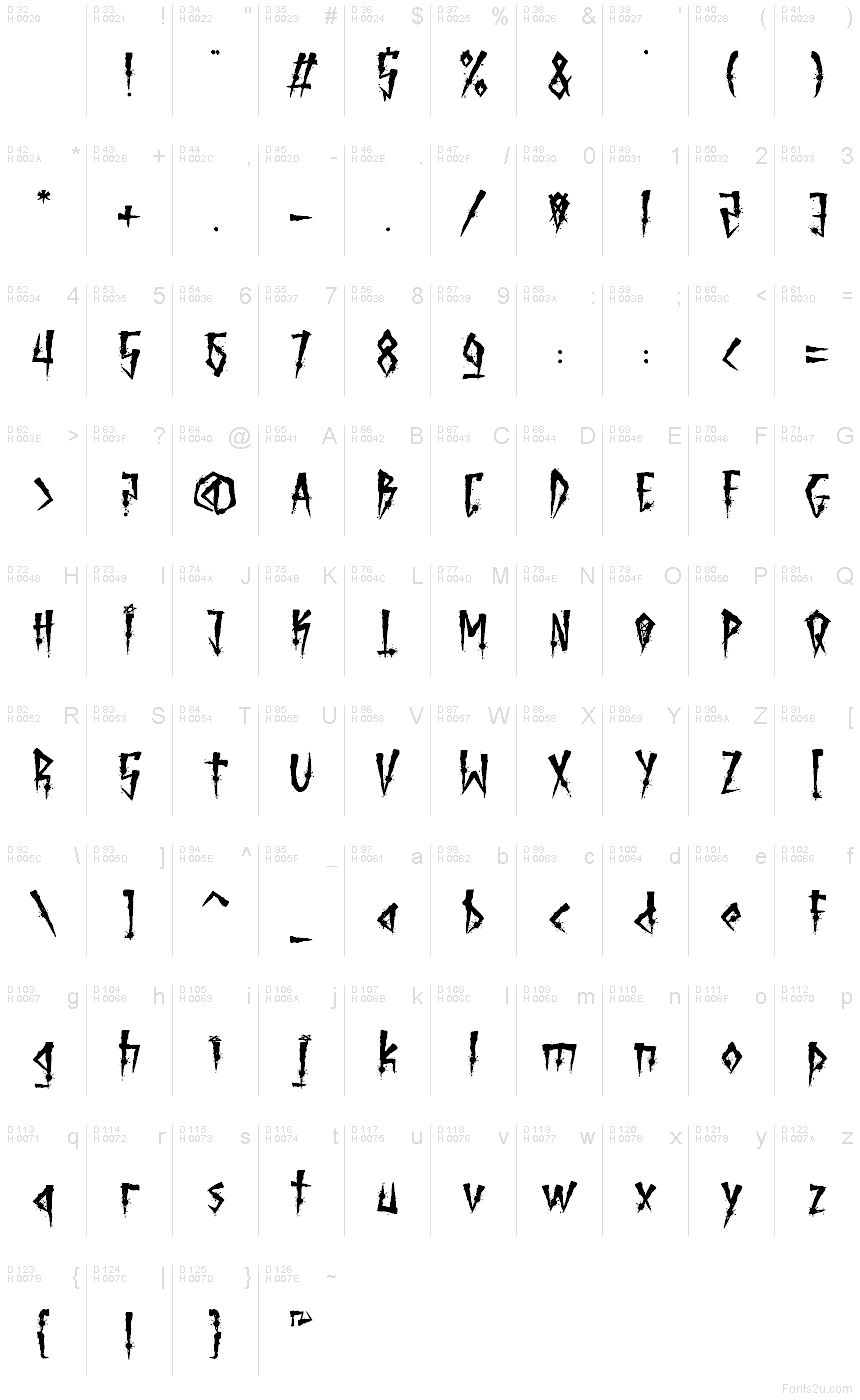
Brutal Brushstrokes Four
Brutal Brushstrokes Four font by PutraCetol Studio is a free Halloween brush display font. Part of the Brutal Brushstrokes family, it lunges off the page with serrated spikes, splattered edges, and scratchy, dry-brush texture that feels freshly clawed. The rhythm is jagged yet legible, giving headlines a primal snap without losing readability at a glance.
Using Brutal Brushstrokes Four, you’ll get instant menace for haunted house posters, party flyers, horror movie titles, escape-room branding, YouTube thumbnails, and eerie merch. This free font thrives at big sizes where the inky frays can breathe. Pair it with a clean condensed sans for body copy, and give letters a touch of extra tracking to let those spiky strokes show.